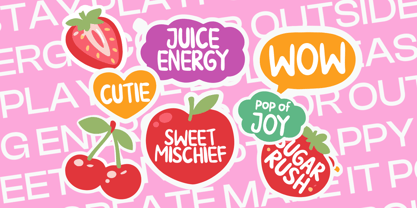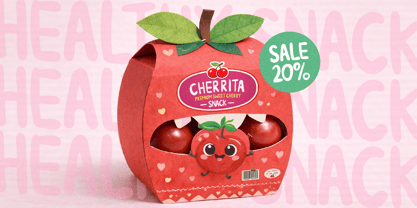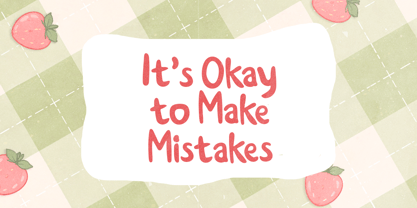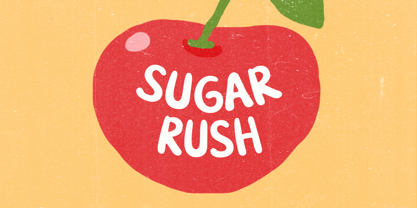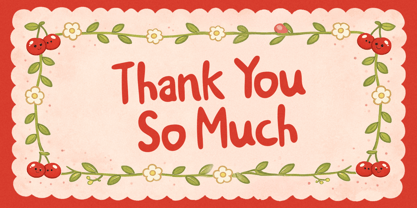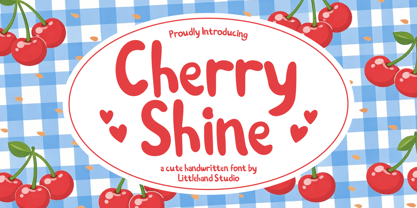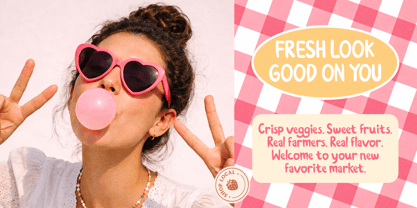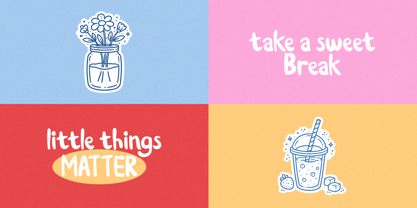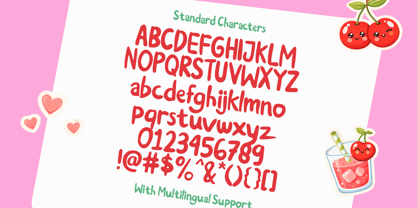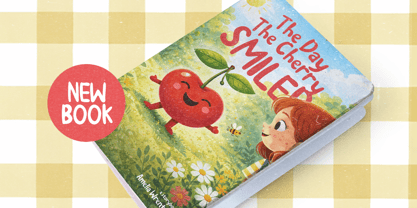
Cherry Shine
by Littlehand
The Cherry Shine Font Family was designed by Aryo Pamungkas and published by Littlehand. Cherry Shine contains 1 styles. More about this family
Cherry Rush is pure squishy sweetness in letter form. The rounded strokes feel soft like mochi, and every curve has that happy, bouncy energy that makes words look extra adorable. It’s bold but never loud, playful without trying too hard — just cute, comfy, and full of charm. Perfect for sticker sheets, pastel packaging, kids party invites, journaling covers, sweet shop branding, and colorful designs that want to feel bubbly, lovable, and totally huggable. Features : Uppercase & lowercase Numbers and punctuation Alternates & Ligatures Multilingual Support PUA encoded
Littlehand is a collective type foundry based in Yogyakarta, Indonesia, focused on designing playful, cute, and cheerful fonts. As part of the Letterhend studio, Littlehand was created as a dedicated space to explore friendly and expressive typography with a warm and approachable character. Littlehand’s typefaces are thoughtfully crafted to support creative projects that value joy and personality, including children’s designs, branding, packaging, social media, and visual storytelling.